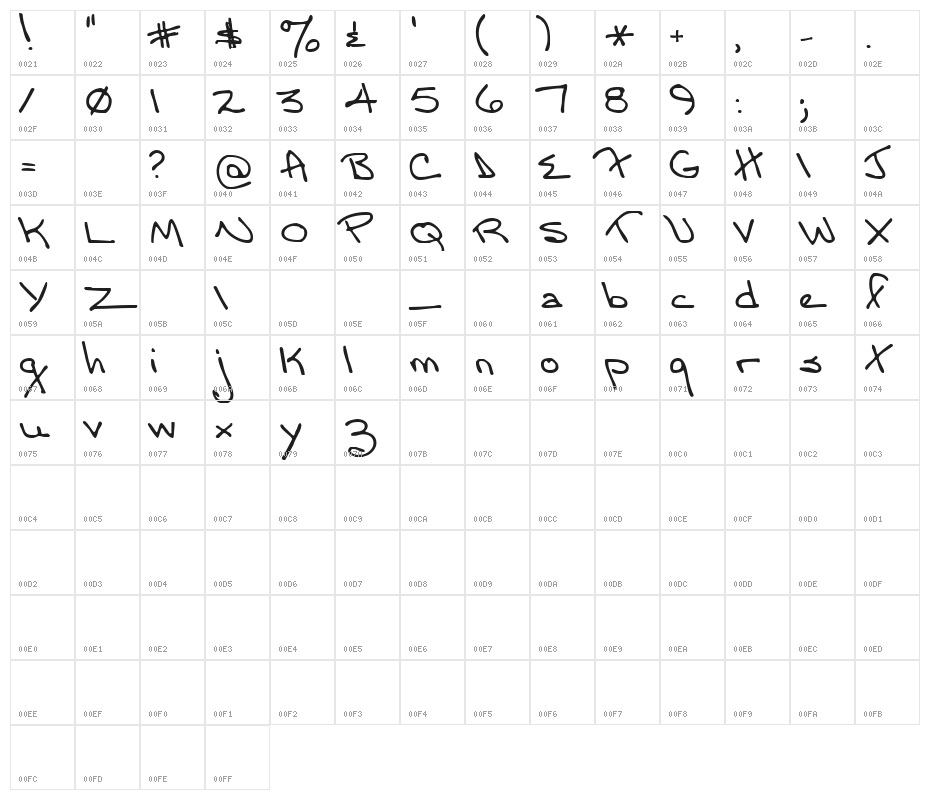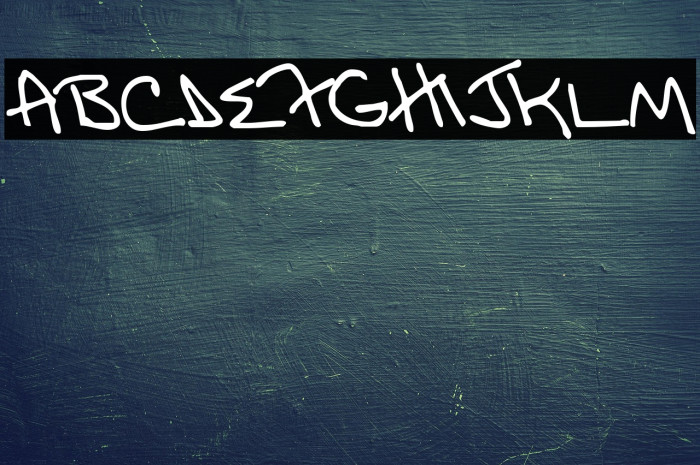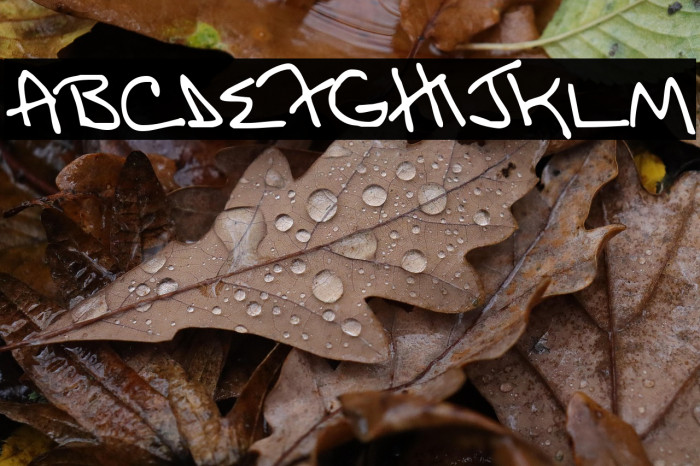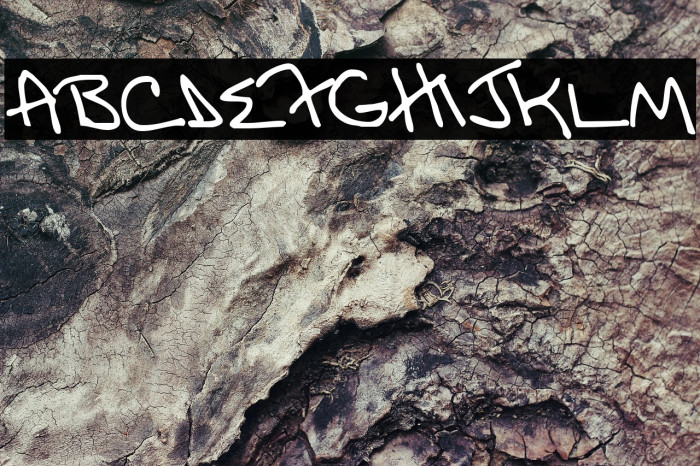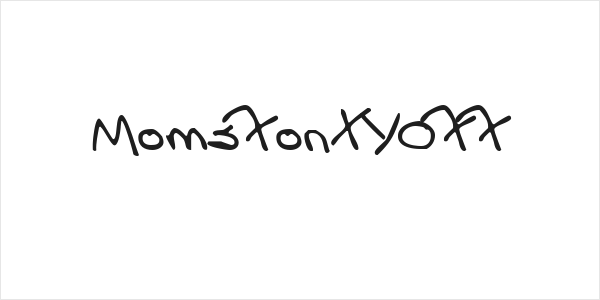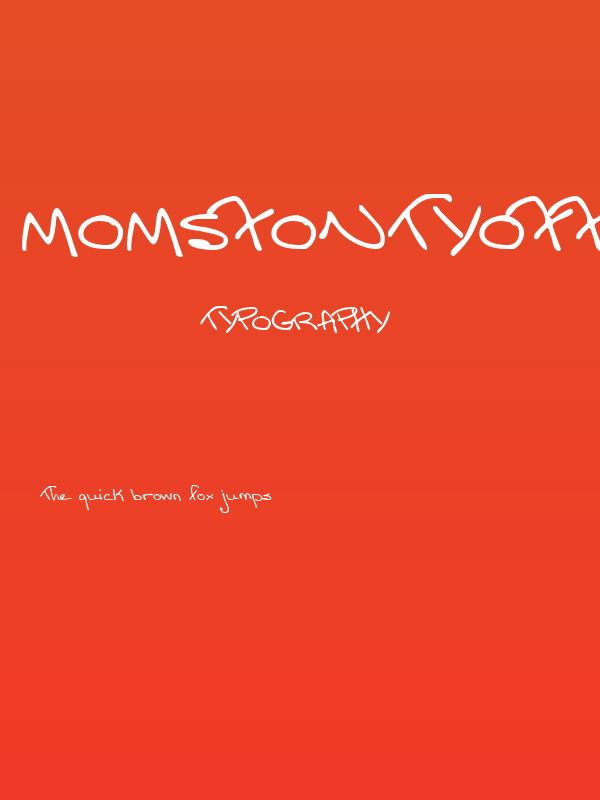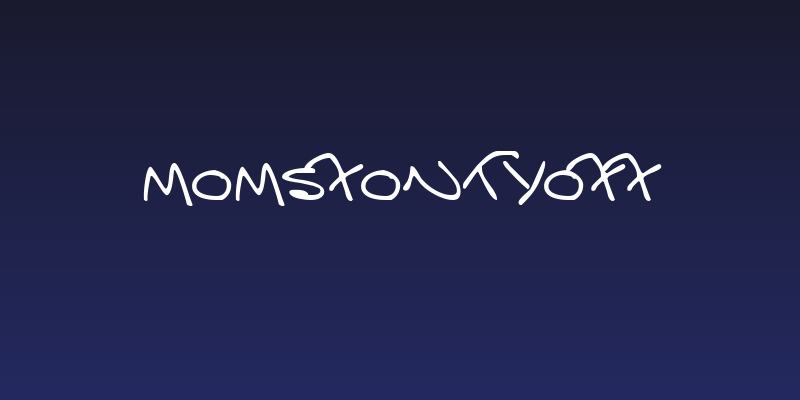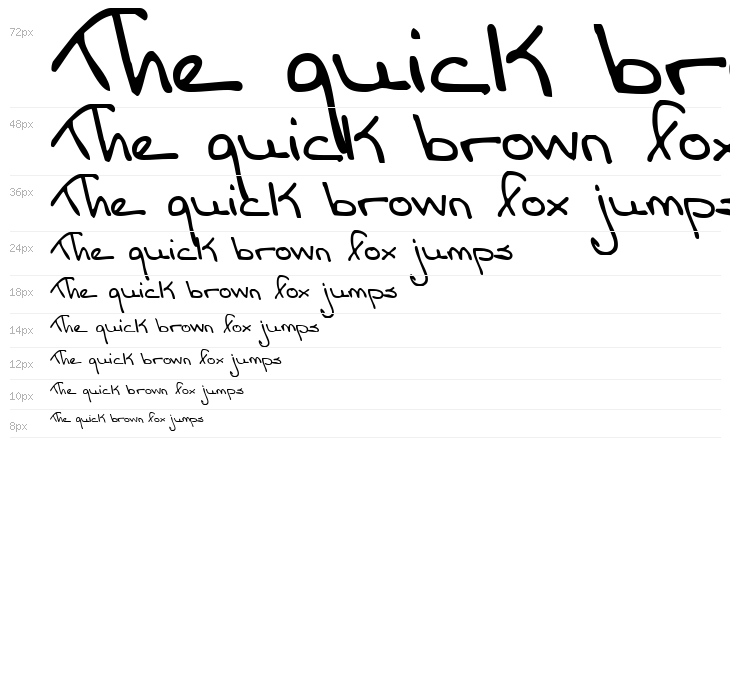
MomsFontYOFF Font
MomsFontYOFF Description
This font features a playful and casual handwritten style, characterized by its fluid and dynamic strokes. The letters are slightly slanted, giving a sense of movement and spontaneity. The uppercase and lowercase letters maintain a consistent style, with rounded edges and a friendly appearance. The numbers and special characters follow the same informal aesthetic, making the font suitable for creative and informal projects. The overall design is approachable and lively, perfect for adding a personal touch to any text.
| Proposed Projects | Ideal for greeting cards, personal notes, children's books, and creative branding. |